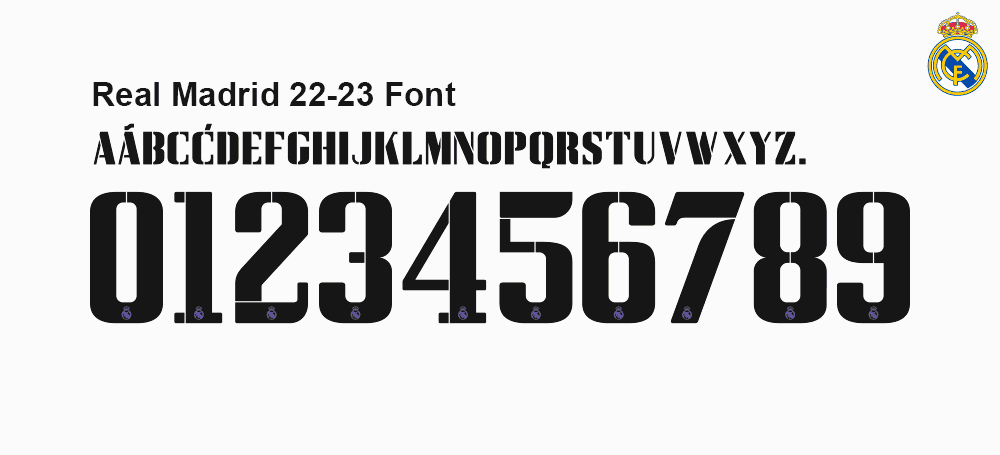
Real Madrid 22-23 Kit Font Released
Real Madrid CF take us back to 2002 with their new 2022-2023 kit font.
Real Madrid 22-23 Font
Real Madrid 22-23 Kit Font
The Real Madrid 22-23 kit typeface is closely inspired by the iconic typeface of 20 years ago when Real Madrid won the Champions League.